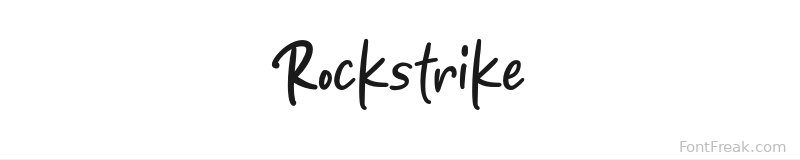
Rockstrike
About Rockstrike
Rockstrike by MJType is a striking display font that effortlessly blends modern aesthetics with a touch of artistic flair. Released in 2023, this font showcases a unique design characterized by its bold, expressive strokes and a slightly uneven baseline, giving it a handcrafted feel. The stroke weight varies throughout the characters, creating a dynamic contrast that captivates the eye while maintaining readability. The spacing is generous, allowing for easy legibility even in larger text settings. Decorative elements, such as playful curves and sharp angles, add a sense of personality and creativity to the font.
Rockstrike is particularly suited for a variety of applications. Its bold nature makes it an excellent choice for movie posters, where it can grab attention and convey a strong message. Additionally, it works well for restaurant menus, adding a contemporary touch that can enhance the overall dining experience. Graphic designers will find it ideal for branding materials, as its unique style can help convey a brand's personality. Wedding invitations can also benefit from Rockstrike's artistic flair, offering a modern yet elegant option for couples looking to make a statement.
What sets Rockstrike apart is its ability to combine boldness with creativity, making it a versatile choice for various design projects. Its unique visual characteristics and contemporary style ensure that it stands out in a crowded marketplace, allowing users to express their ideas with confidence and flair.